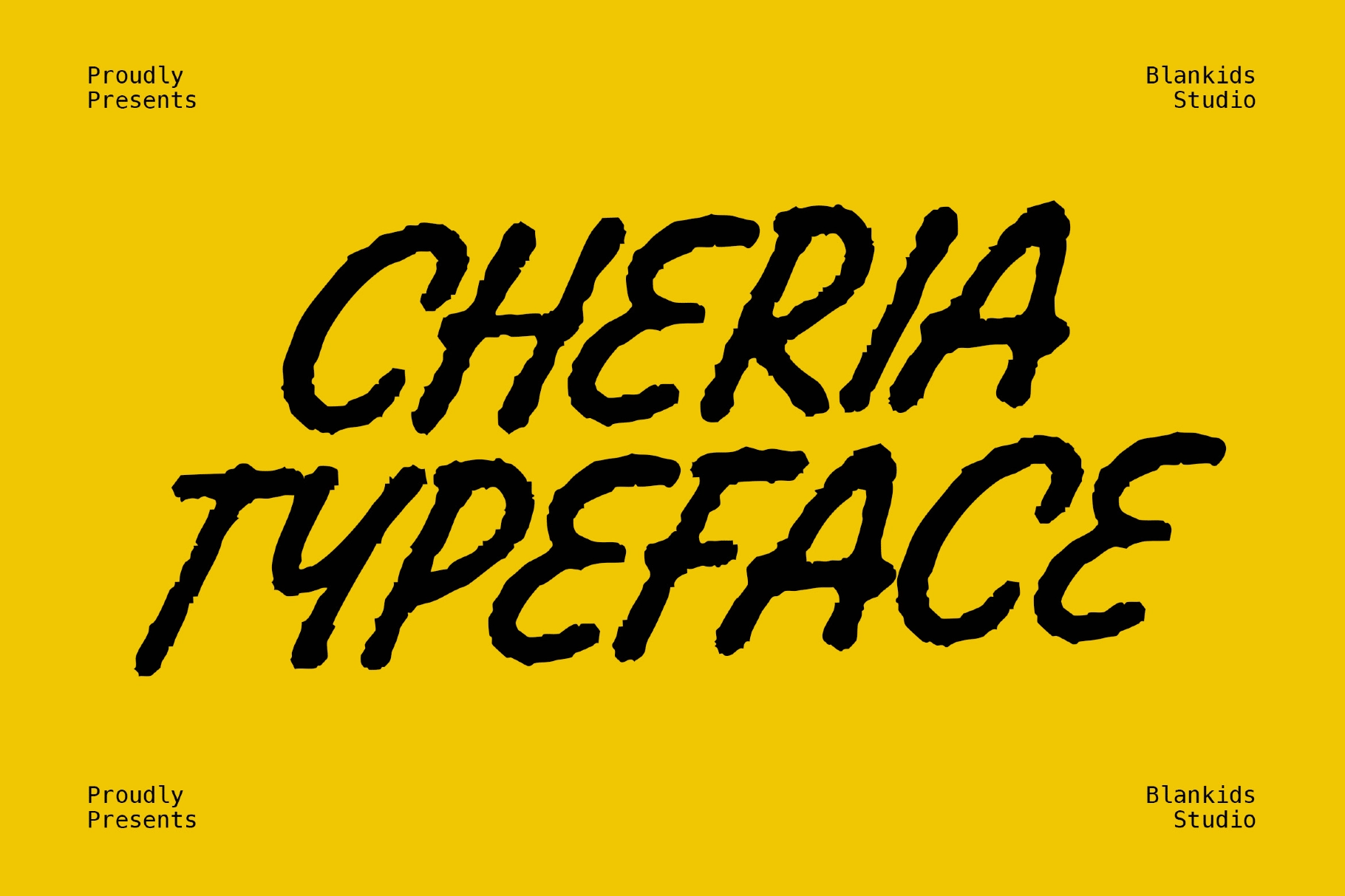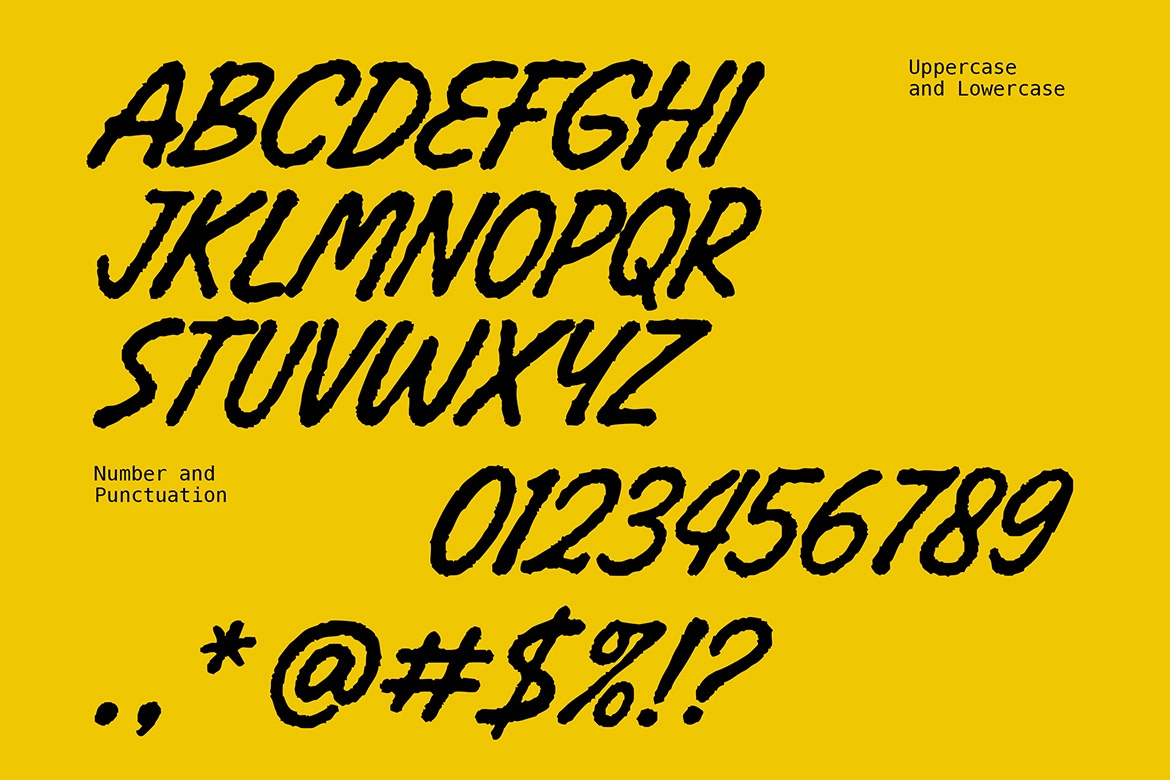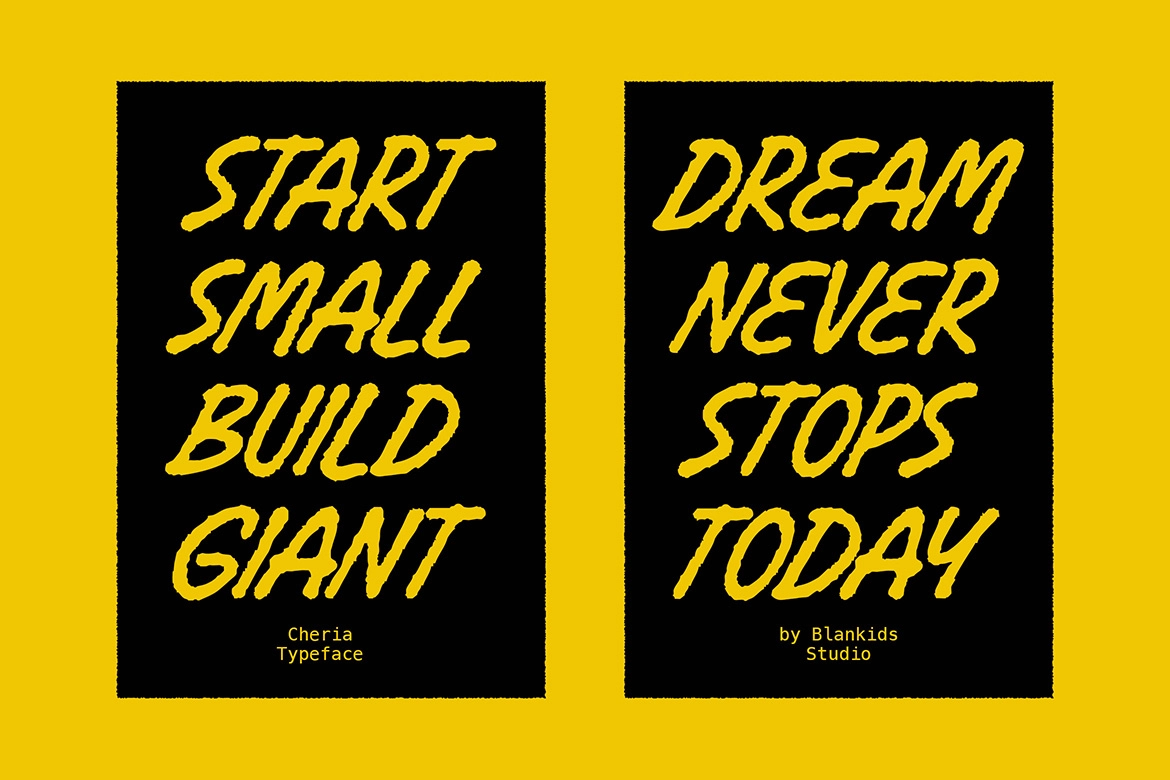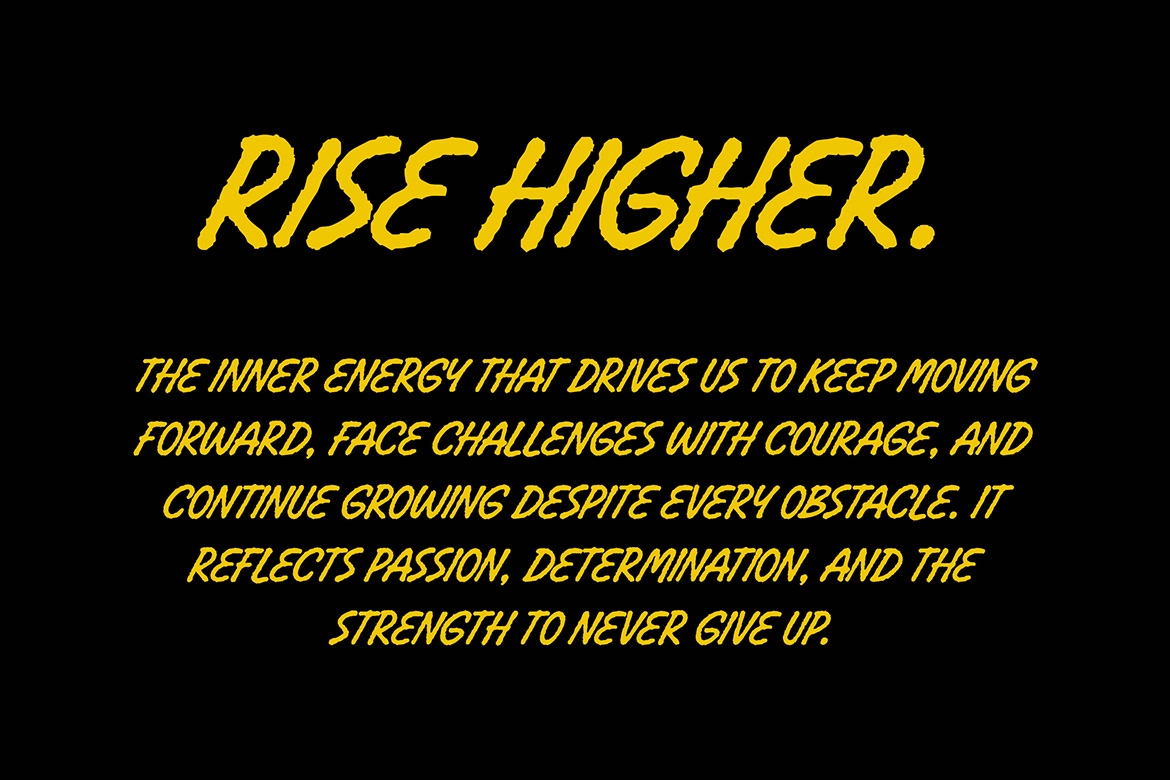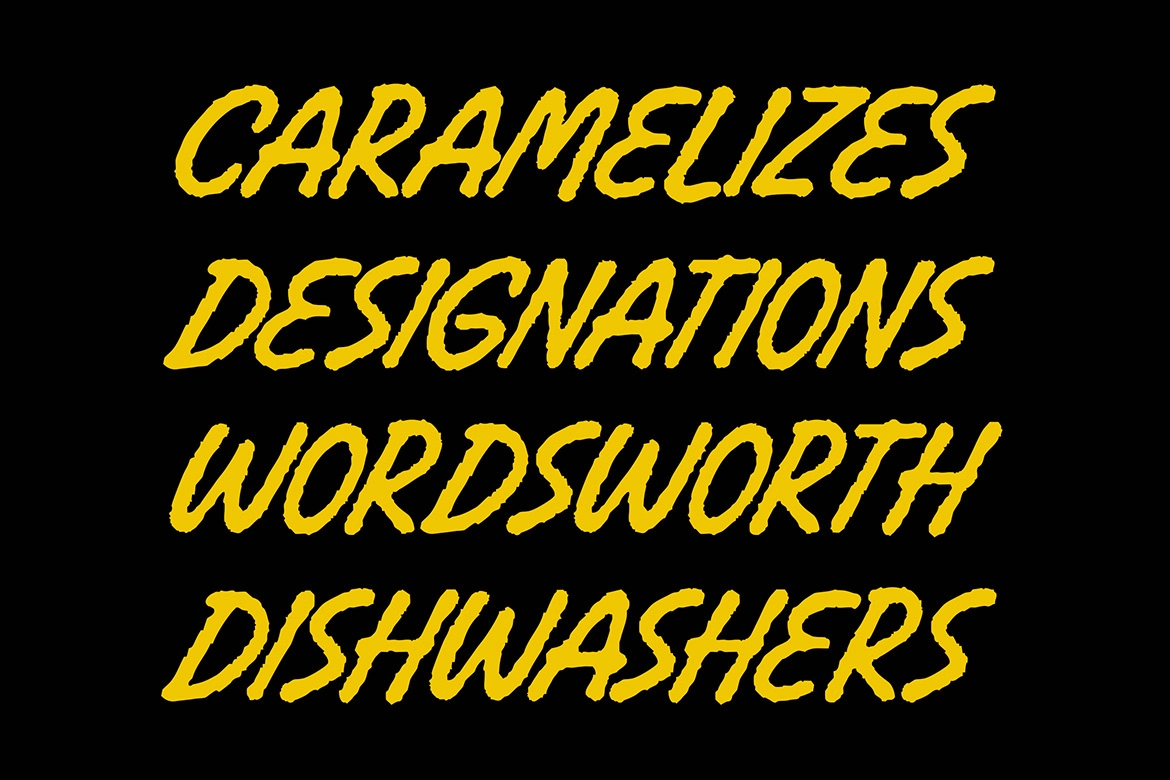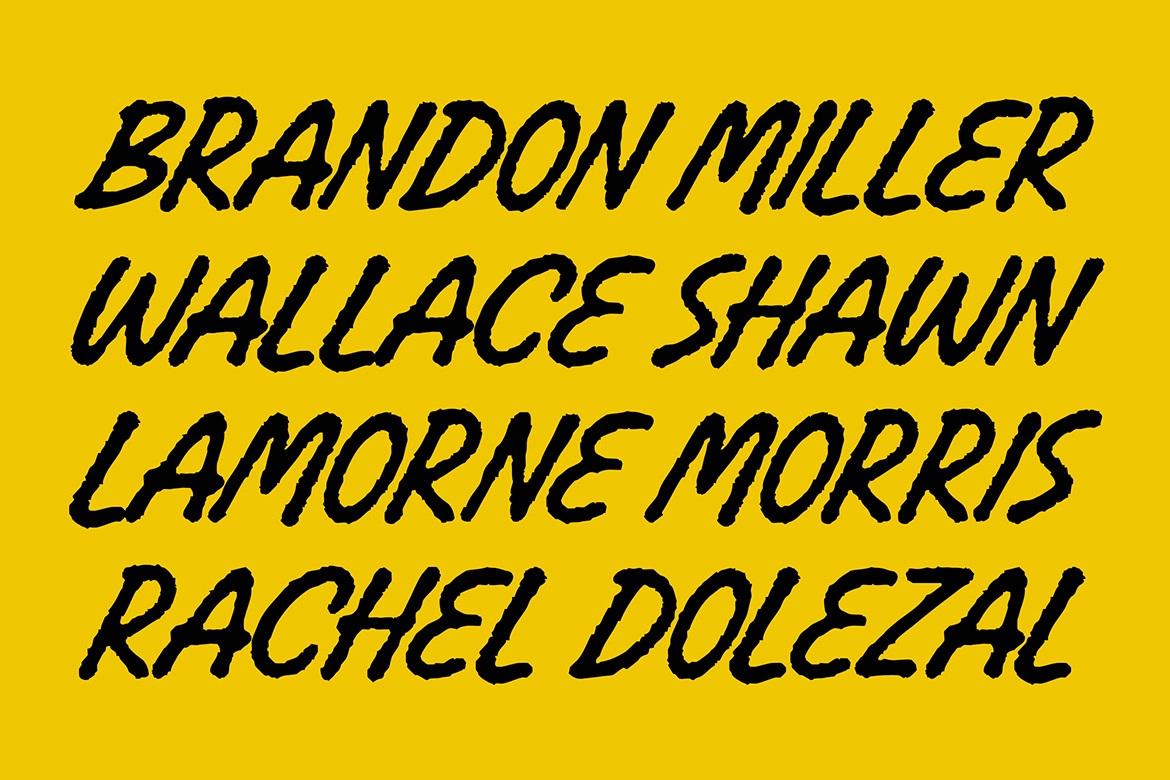
Cheria - Rough Handcrafted Brush Font
Cheria is a rough, handcrafted brush font built on torn-edge strokes, a steep forward slant, and a jittery baseline that never quite sits still. Every letter shows the scratch and tear of a marker dragged fast across paper, so the texture is uneven on purpose.
Cheria works best in loud, oversized settings where the rough edges can dominate a layout instead of smoothing out. Use it for gig posters, streetwear graphics, album covers, skate branding, protest signage, zine covers, and bold editorial headlines.
• Uppercase & lowercase;
• Numerals, punctuation & symbols;